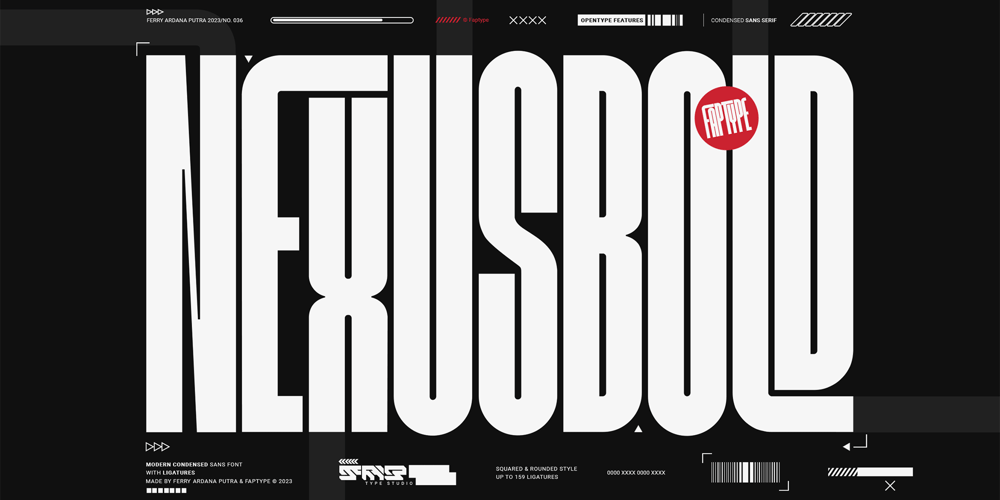
Nexusbold Sans Font Family was designed by Ferry Ardana Putra and published by Ferry Ardana Putra. Nexusbold Sans contains 4 styles and family package options. Introducing Nexusbold, a modern condensed sans font that redefines typographic excellence. With its sleek and contemporary design, Nexusbold is the epitome of elegance and functionality, enhanced by an extensive array of meticulously crafted ligatures.Nexusbold’s condensed form is carefully crafted to optimize space without compromising legibility. Whether you’re creating headlines, logos, packaging, or web designs, this font’s compact structure ensures a visually striking impact that commands attention.But what truly sets Nexusbold apart is its vast collection of expertly designed ligatures. With an abundance of ligatures at your disposal, Nexusbold empowers you to create seamless connections between characters, infusing your typography with a sense of fluidity and artistry. These ligatures add a touch of sophistication, taking your designs to new heights and captivating viewers with their visual allure.Nexusbold is a versatile font suitable for a myriad of design applications, including editorial layouts, branding materials, advertising campaigns, and digital interfaces. Its modern condensed sans style exudes a sense of professionalism and contemporary aesthetics, making it the perfect choice for projects that demand a refined and sleek visual identity.Whether you’re pursuing a minimalistic, high-tech, or cutting-edge look, Nexusbold provides the ideal canvas for your creativity. Its modern condensed form, coupled with a plethora of ligatures, empowers you to create captivating and memorable designs that stand out from the crowd.In summary, Nexusbold is an exceptional modern condensed sans font that combines functionality, elegance, and a wealth of ligatures. Unlock the full potential of your typographic endeavors with NexusBold—a font that seamlessly merges form and function, enabling you to craft visually stunning and harmonious designs.Nexusbold features:A full set of uppercaseNumbers and punctuationMultilingual language supportPUA Encoded CharactersOpenType FeaturesCondensed Style+400 of Total Glyphs+156 of Total Ligatures———